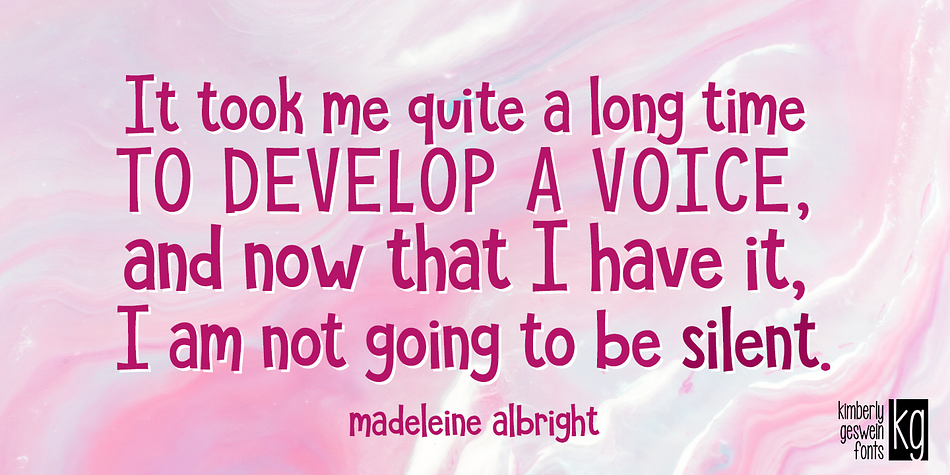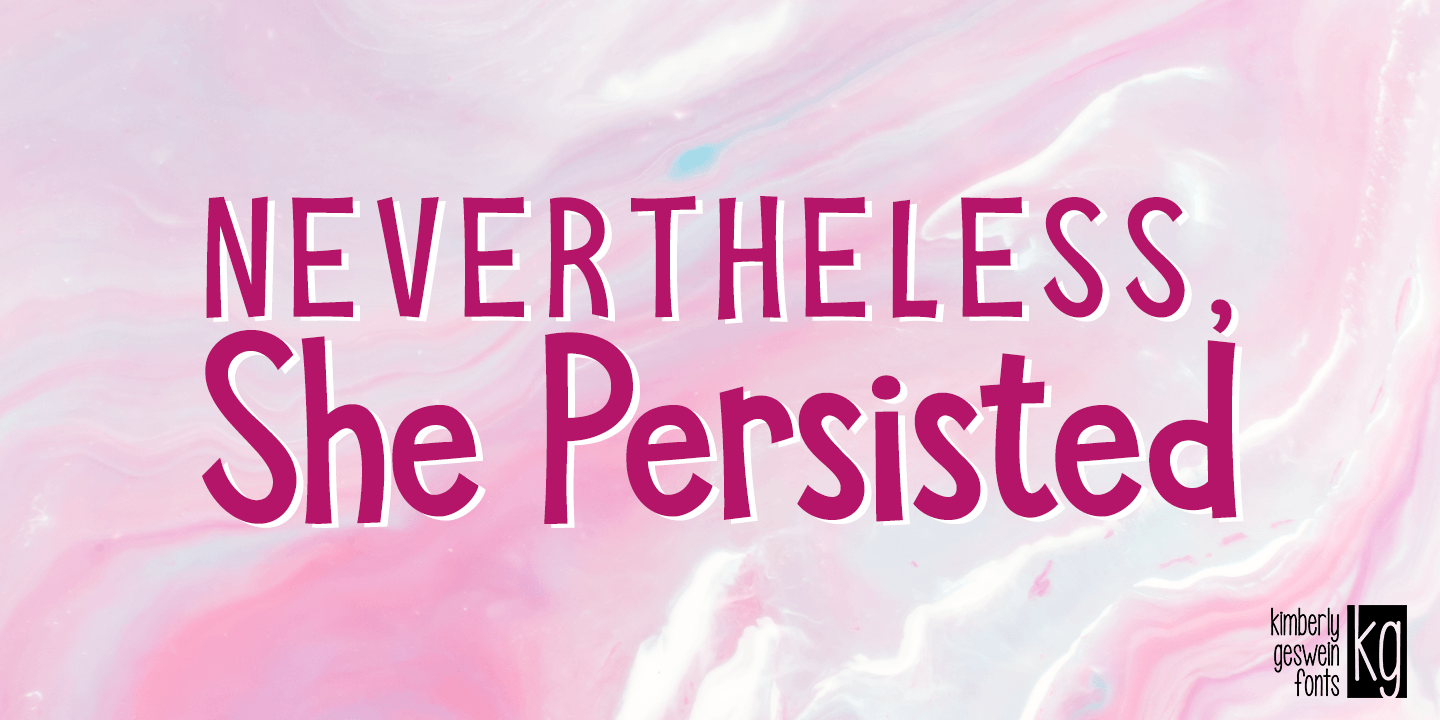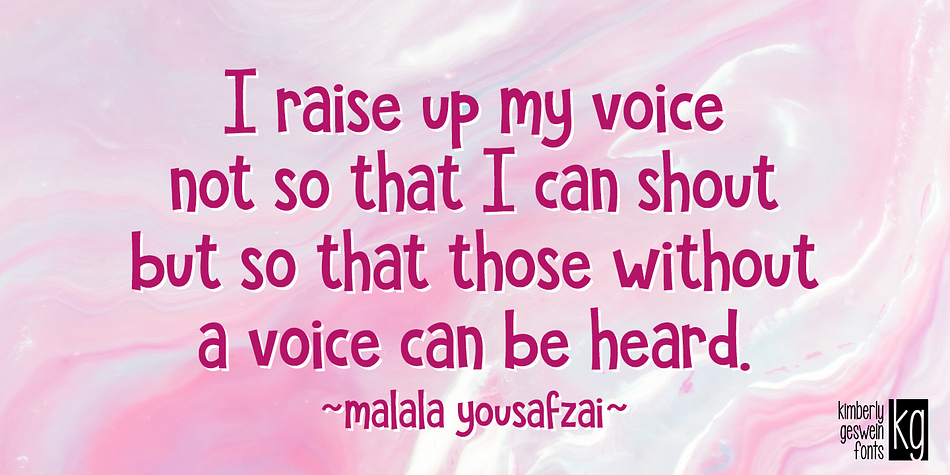
Designed by Kimberly Geswein, KG She Persisted is a hand drawn font published by Kimberly Geswein Fonts.
This font is perfect for titles- it’s a little bold, a little playful, and yet still highly legible.